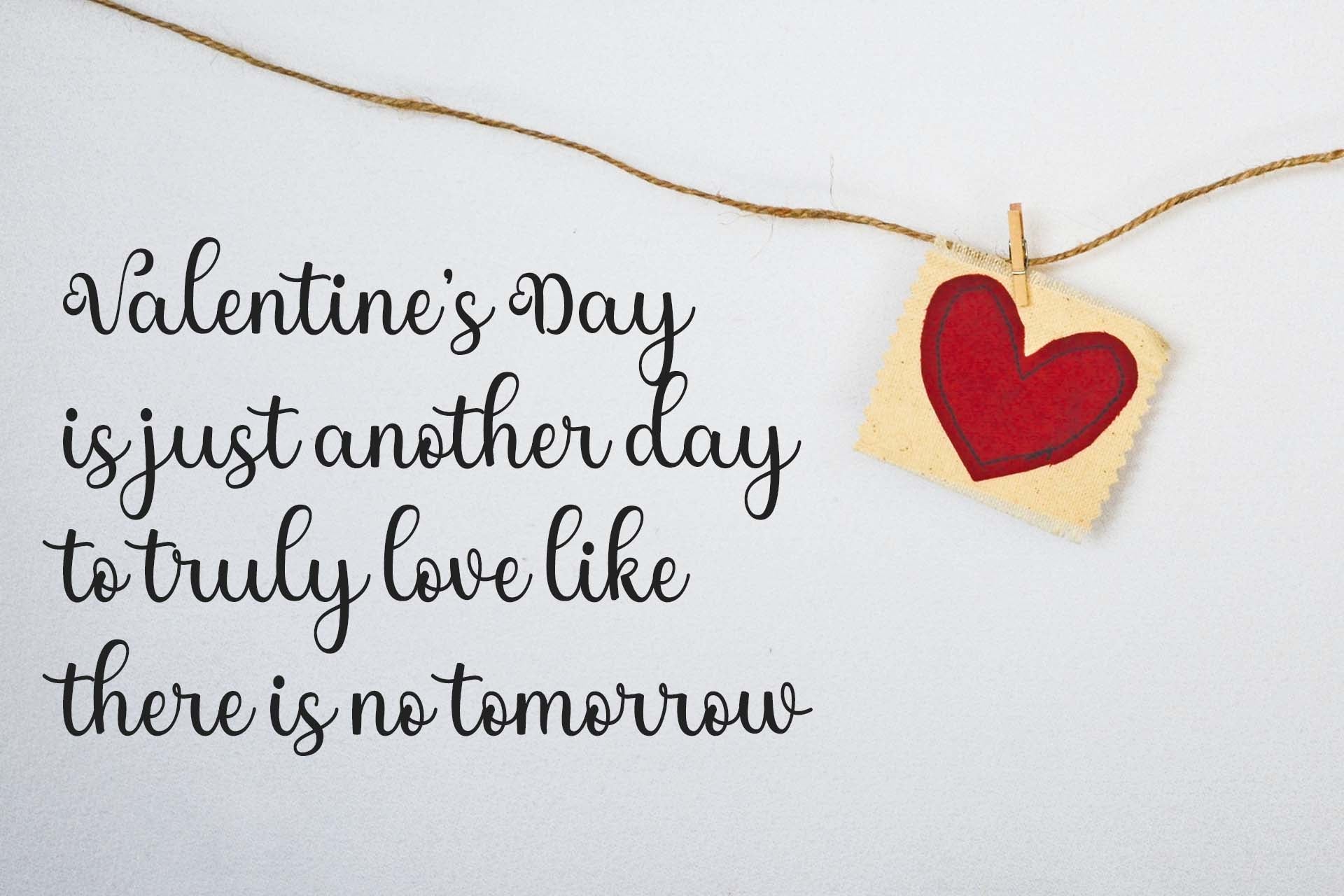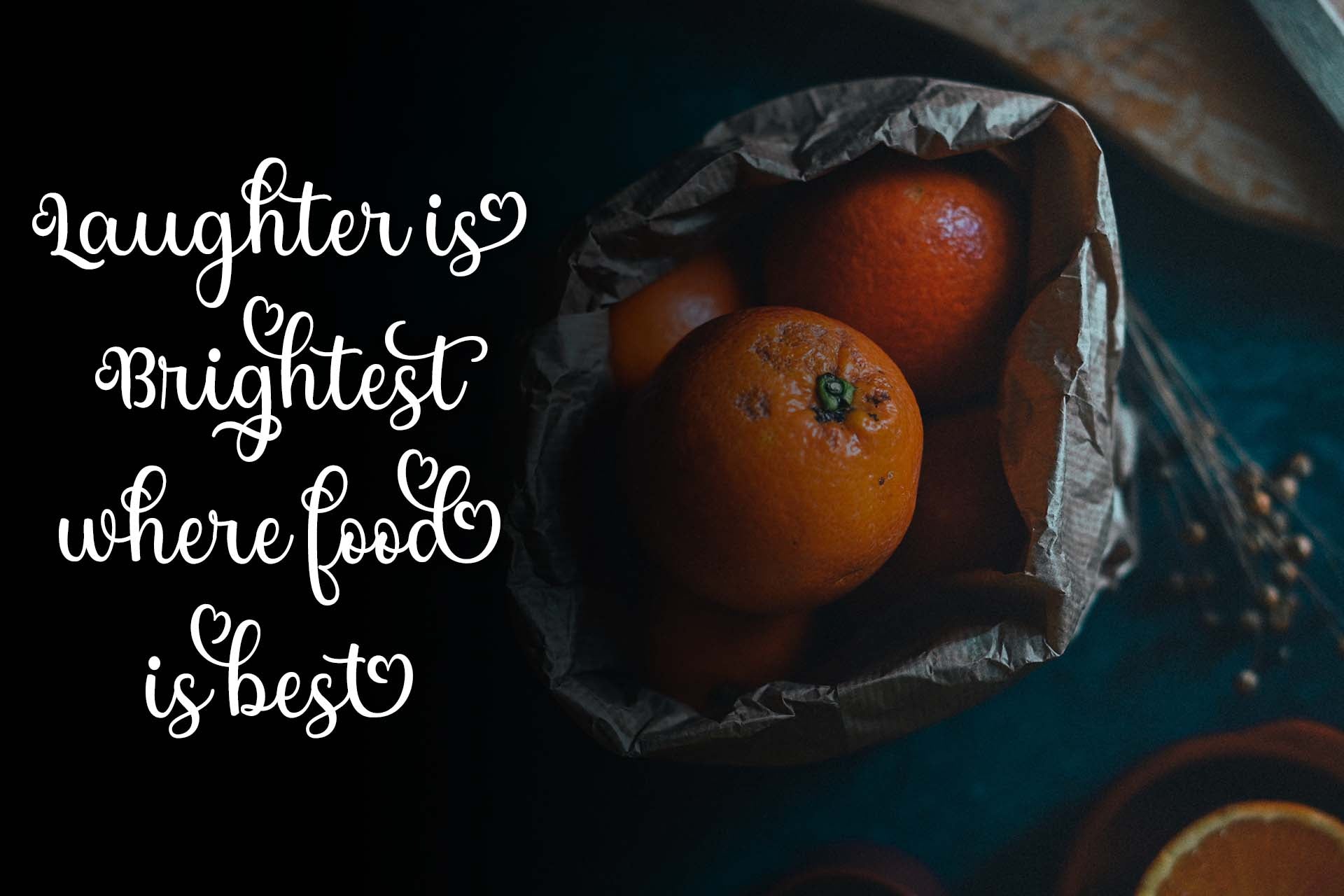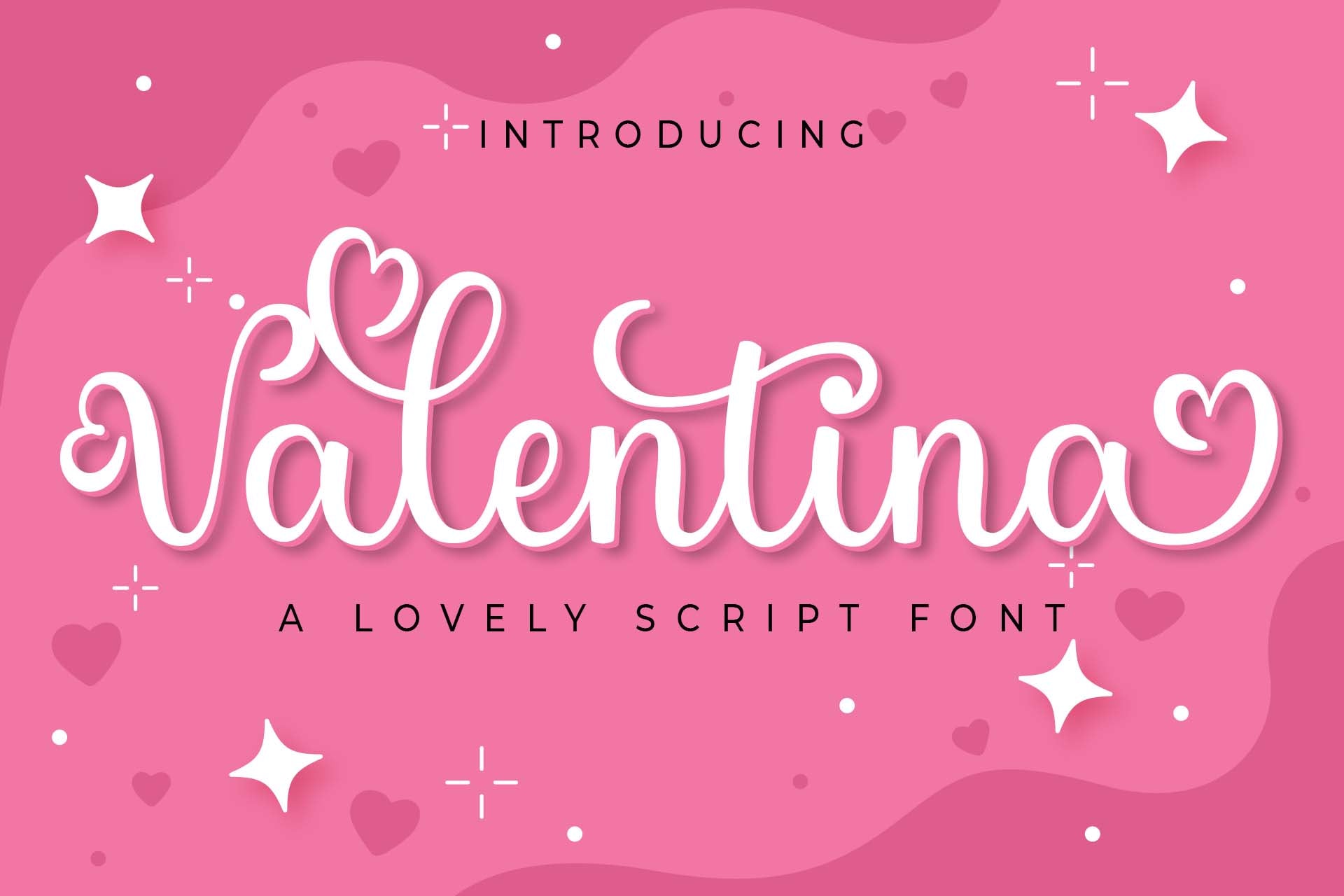
Valentina is a cute and elegant script font with a romantic touch. This font is so perfect to be used for many designs with valentine’s themes, such as wedding invitations, greeting cards, social media quotes, branding, logo, and more. This font is PUA encoded, which means you can access all of the glyphs and swashes with ease!